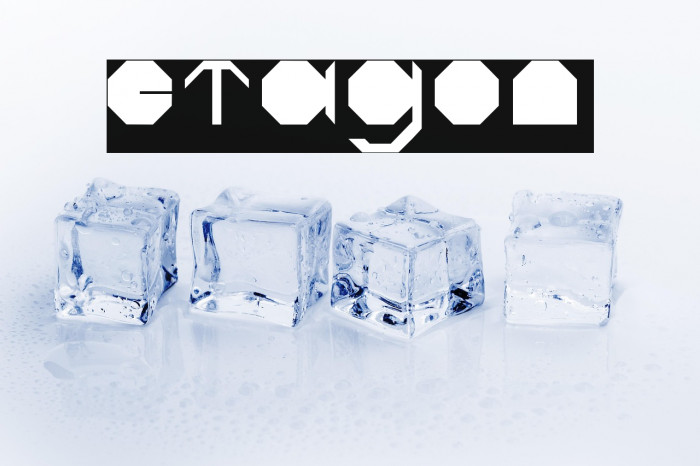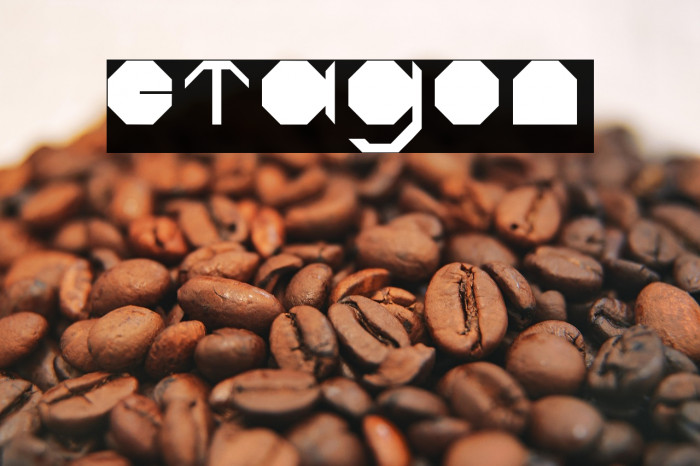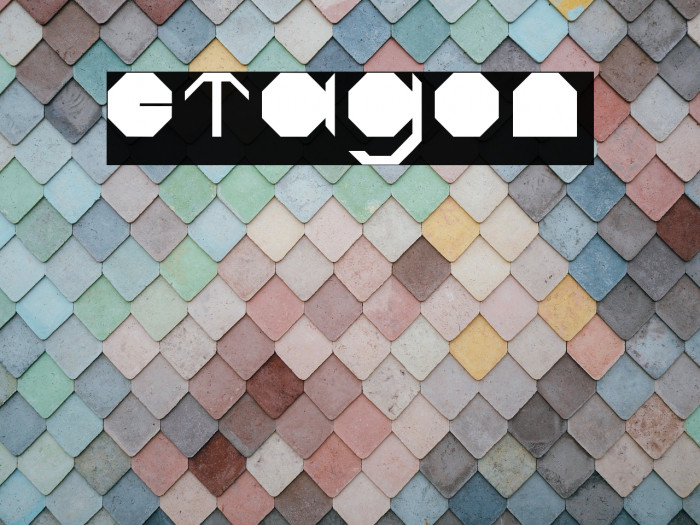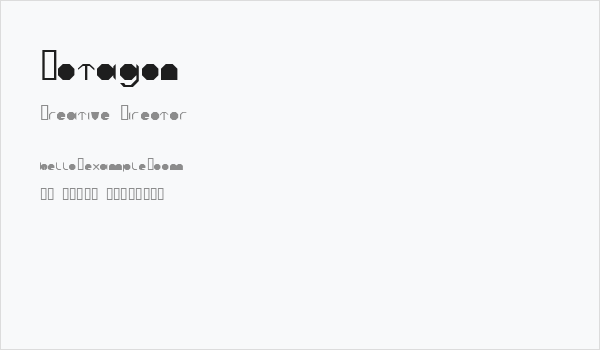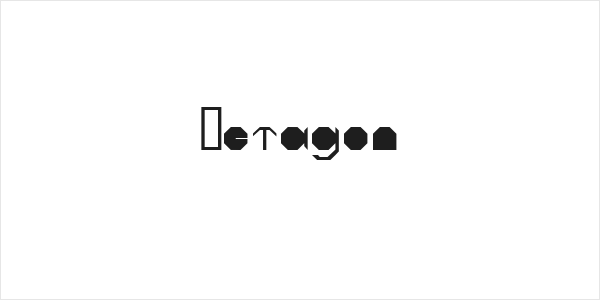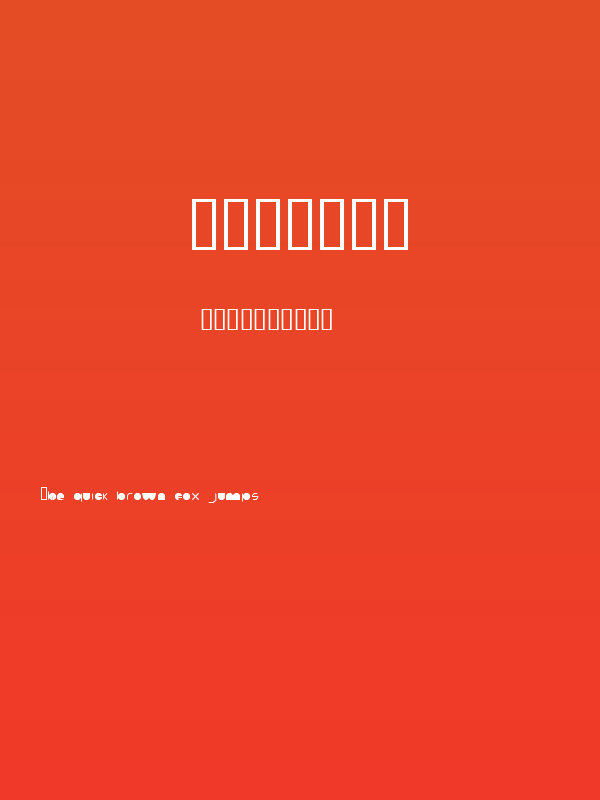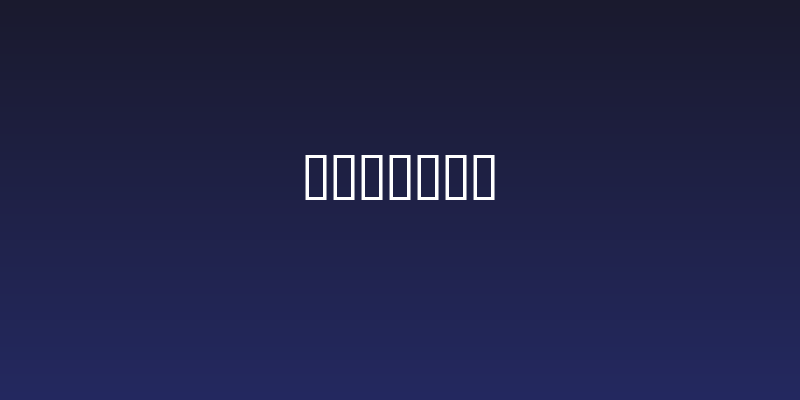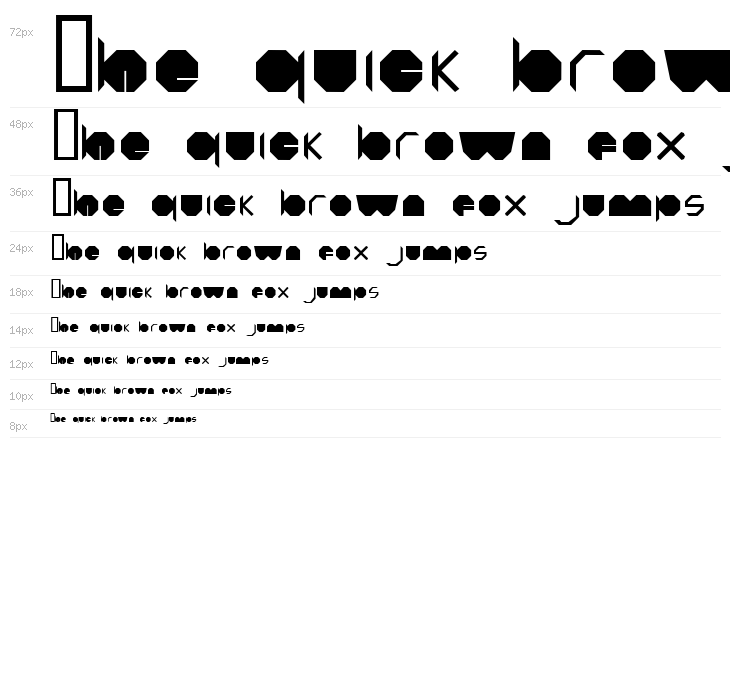
Octagon Font
Octagon Description
This font features a unique geometric design with an octagonal structure for each character. The uppercase letters are constructed with bold, straight lines and sharp angles, creating a futuristic and edgy appearance. The lowercase letters maintain the octagonal theme but with slightly softer edges, providing a cohesive yet distinct look. The numbers and special characters follow the same geometric pattern, ensuring uniformity across all glyphs. This font's bold and striking design makes it ideal for projects that require a modern and unconventional aesthetic.
| Proposed Projects | Ideal for sci-fi themed designs, modern branding, video game interfaces, and innovative product packaging. |